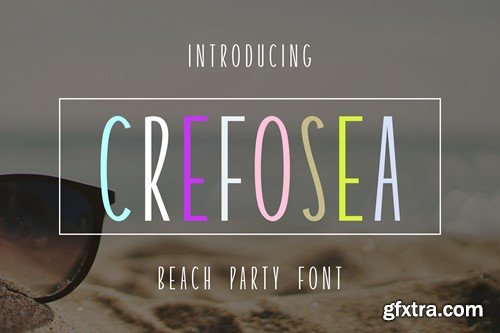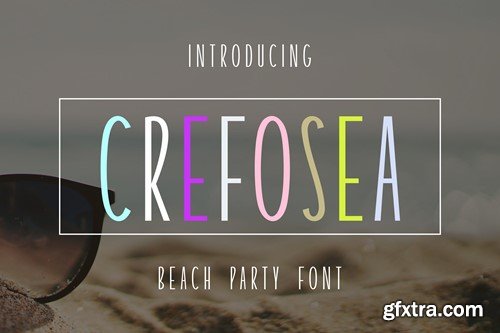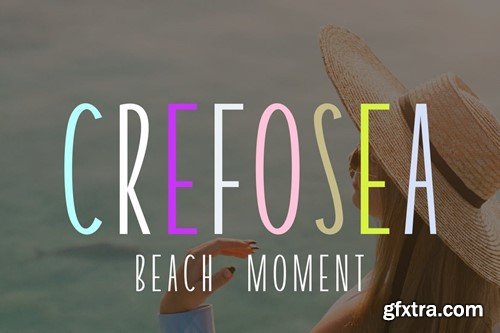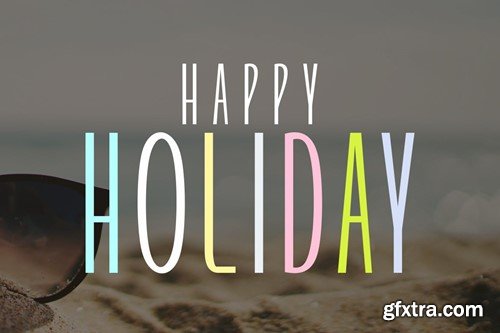
Crefosea Font
fonts related to the beach and everything related to it. Holidays are a very appropriate choice of font use. available in .OTF and .TTF formats, Conversion to other formats is very easy. Thank You